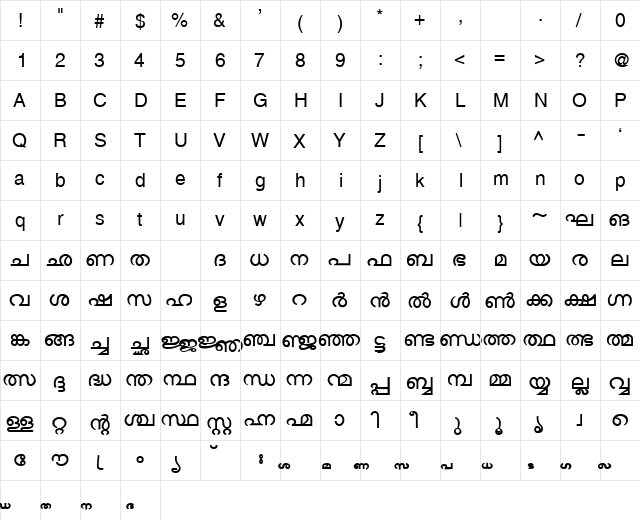
RE_iNFOM-Kaveri Normal
Design Context for RE_iNFOM-Kaveri Typeface
RE_iNFOM-Kaveri is a composed and adaptable typeface that performs quietly and consistently across a wide range of design contexts.